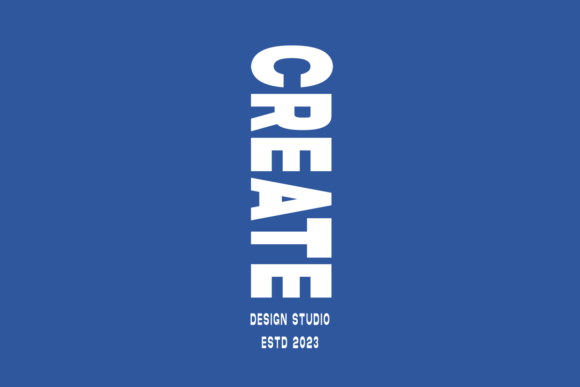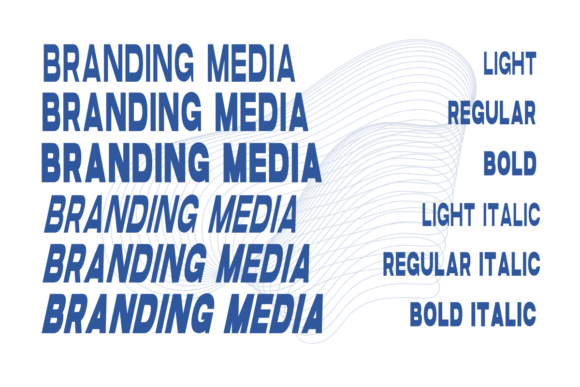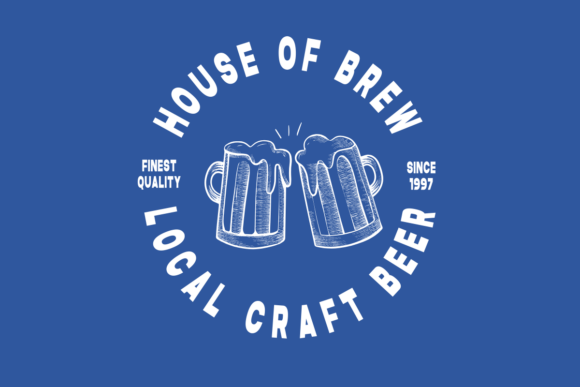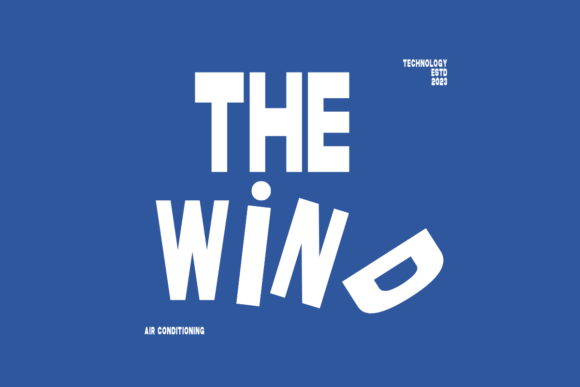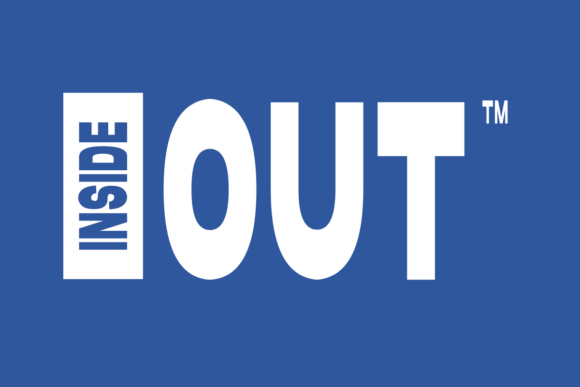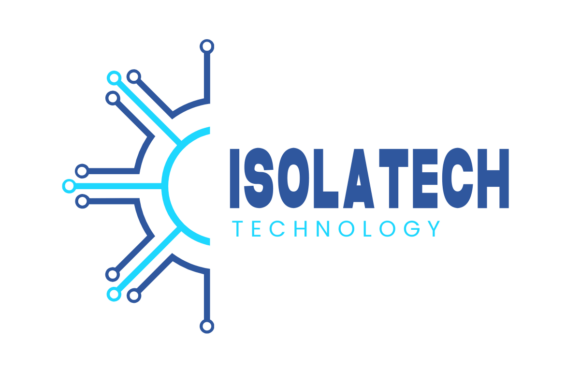
Unleash High-Energy Personality with Como Moncer Font
Are you tired of using the same old fonts that fail to capture the essence of your brand? Look no further than the Como Moncer font, a casual condensed powerhouse designed to inject a dose of high-energy personality into your layouts. This extensive typeface family offers six versatile styles, ranging from elegant Light to a punchy Bold, each with a matching slanted italic for added dynamic movement.
The Ultimate Choice for Impactful Designs
The Como Moncer font is the ultimate choice for sports branding, bold editorial headlines, and modern streetwear labels where space is at a premium but character is required. Its “casual” condensed nature means the Como Moncer typeface avoids the stiffness of traditional industrial fonts, opting instead for a friendly, approachable bold look that is sure to grab attention.
One of the standout features of the Como Moncer font is its versatility. With six styles to choose from, you can use it for a wide range of design projects, from sophisticated subheadings to call-to-action buttons that demand immediate attention. The light weight is perfect for creating elegant subheadings, while the bold italic is ideal for creating attention-grabbing headlines and buttons.
A Smart Toolkit for Designers
The Como Moncer font is a “smart” toolkit for any designer needing a reliable, space-efficient family that never compromises on style. Whether you’re working on a sports branding project, a fashion label, or a bold editorial spread, this font has got you covered. Its unique blend of elegance and boldness makes it the perfect choice for designers who want to create impactful designs that stand out from the crowd.
Key Features of Como Moncer Font
- 6 versatile styles: Ranging from elegant Light to a punchy Bold, each with a matching slanted italic for added dynamic movement.
- Casual condensed design: Avoids the stiffness of traditional industrial fonts, opting instead for a friendly, approachable bold look.
- Space-efficient: Perfect for designs where space is at a premium, but character is required.
- High-energy personality: Injects a dose of energy and personality into your layouts.
- Multi-purpose: Suitable for a wide range of design projects, from sports branding to fashion labels and editorial spreads.
Tips for Using Como Moncer Font
Here are some tips for getting the most out of the Como Moncer font:
- Use the light weight for subheadings: Create elegant subheadings that add a touch of sophistication to your designs.
- Use the bold italic for headlines and CTAs: Create attention-grabbing headlines and call-to-action buttons that demand immediate attention.
- Experiment with different styles: Don’t be afraid to try out different styles to find the one that works best for your design.
| Font Name | Como Moncer Font |
| Author | Fikryal Studio |
In conclusion, the Como Moncer font is a powerful tool for designers who want to inject a dose of high-energy personality into their layouts. With its versatile styles, casual condensed design, and space-efficient nature, it’s the perfect choice for a wide range of design projects. Whether you’re working on sports branding, fashion labels, or editorial spreads, this font is sure to help you create impactful designs that stand out from the crowd.